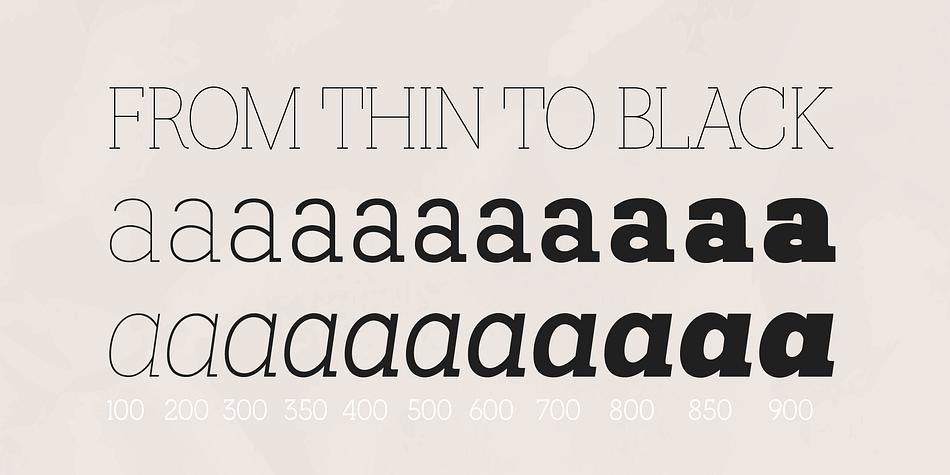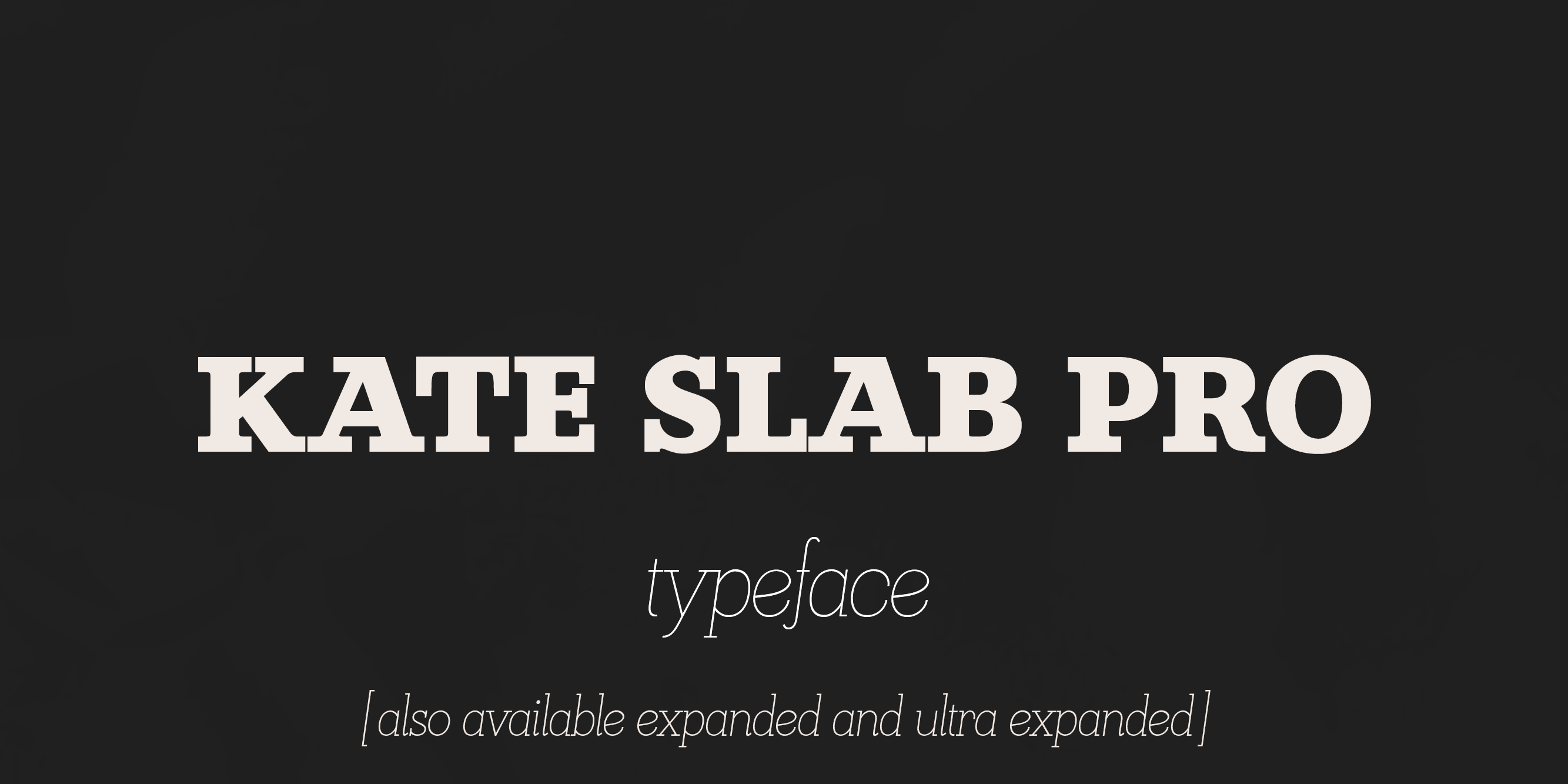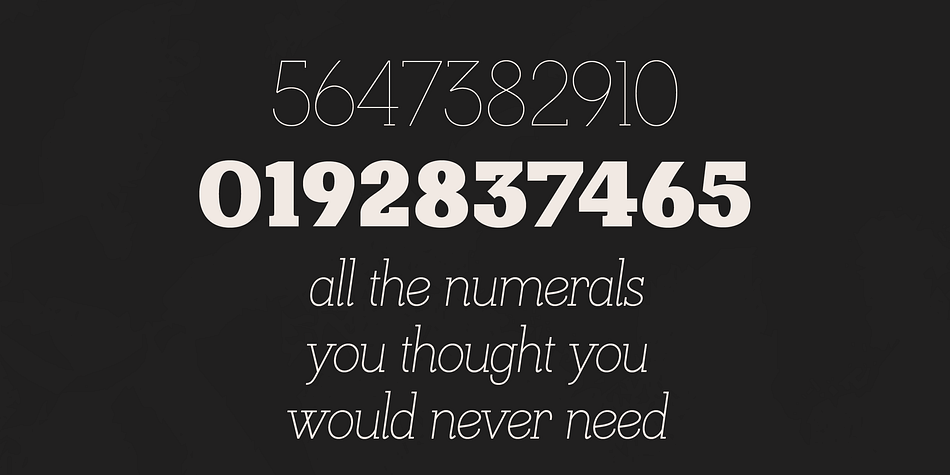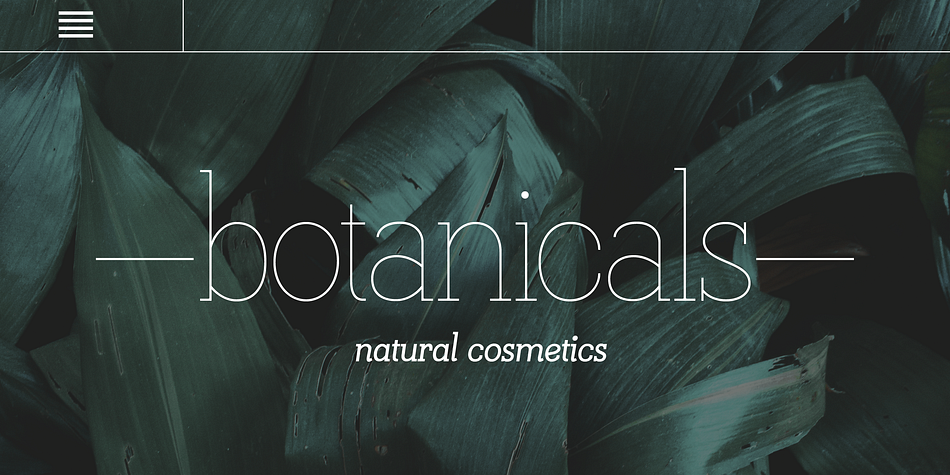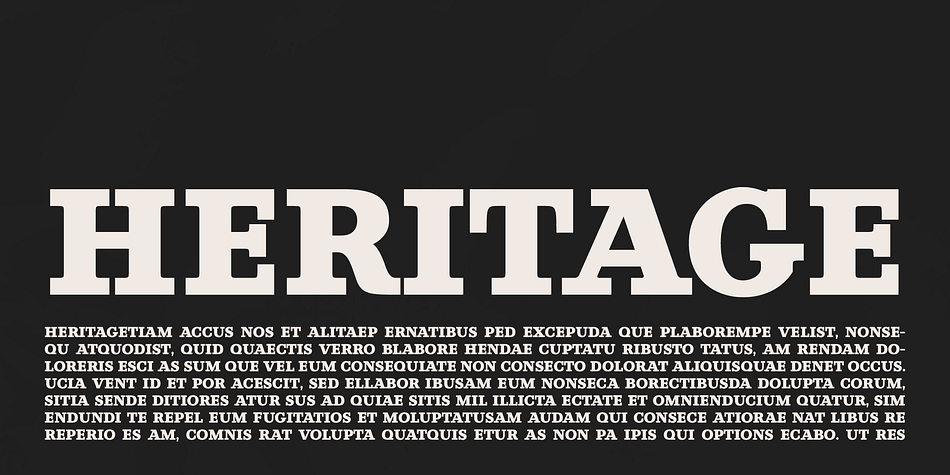
Kate Slab Pro
Kate Slab Pro is a slab serif font family. This typeface has twenty-two styles and was published by Monday Type.
Kate Slab Pro is a sophisticated and robust modern Slab Serif Typeface that works in a variety of design scenarios.
It is designed to work in big attention grabbing headlines as well as in smaller text and even body text.
The recognition value of Kate Slab Pro is its biggest asset in world of uniformity.
Ranging from “100 Thin” all the way to “900 Black” makes Kate Slab Pro such an amazing and versatile font family that stands out.
Kate Slab Pro doesn’t only work great in lifestyle and fashion related contexts but will also look amazing for restaurants, coffee shops or and other use cases that ask for character and identity.
To fill all the gaps of a designer’s needs, Kate Slab Pro comes with an italic style with every weight. Those italics are equipped with unique and real italic characters and will make you love it.
Being a Slab Serif Kate Slab Pro manages to remind you of a classic Font Family with a modern and timeless approach that will make you happy for decades.